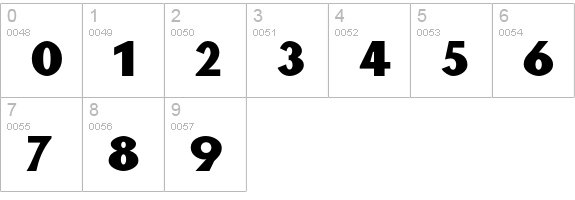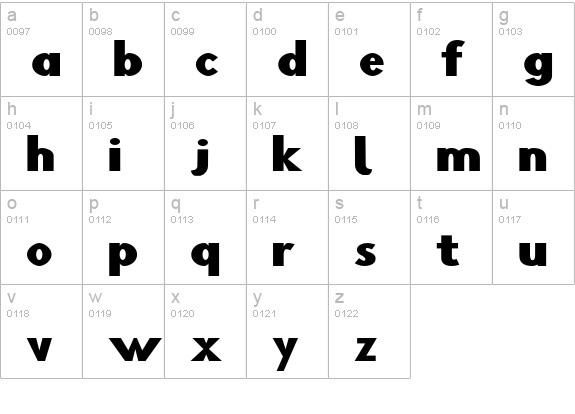
Blink Ultra Wide Font Details
Blink Ultra Wide is an extreme-weight, display, extended-width variant in the Blink typeface family \xE2\x80\x94 well suited to extreme display use where maximum visual weight is required.
Introducing Blink Ultra Wide font, a stunning display typeface that combines elegance and boldness in perfect harmony. With its sleek and elongated letterforms, Blink Ultra Wide commands attention and leaves a lasting impression. This typeface is perfect for eye-catching headlines, captivating logos, and striking designs that demand to be noticed. Its ultra-wide proportions create a sense of space and grandeur, making it ideal for projects that require a touch of sophistication and modernity. But what sets Blink Ultra Wide apart is not just its impeccable design; it's also its accessibility. This font is available for free download at FontsMarket.com, making it easily accessible to designers, enthusiasts, and anyone looking to elevate their projects without breaking the bank. Whether you're working on a branding project, advertising campaign, or simply want to add a touch of elegance to your personal creations, Blink Ultra Wide is the perfect choice. Its versatility and ability to make a statement ensure that your message will be conveyed with style and impact. So don't miss out on this incredible opportunity to enhance your designs with Blink Ultra Wide font. Download it for free at FontsMarket.com and let your creativity soar.